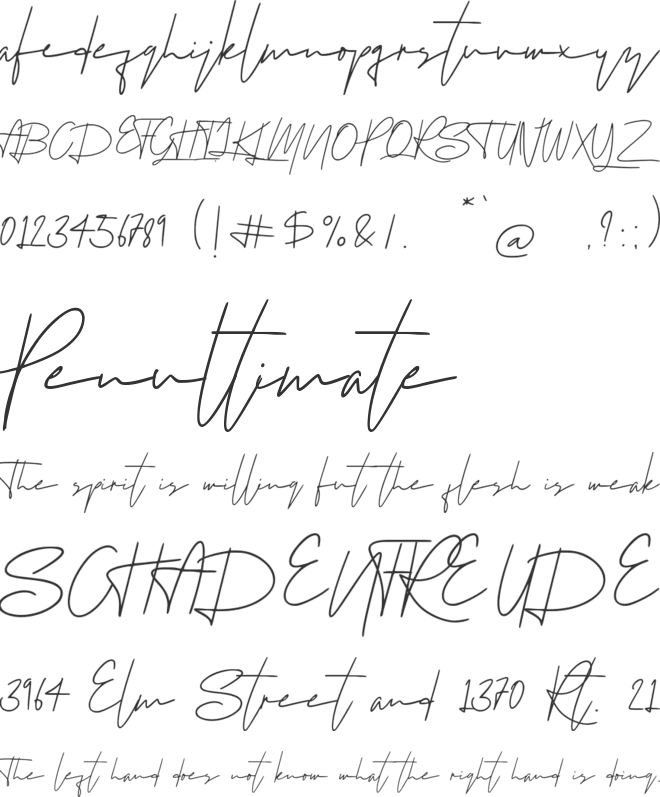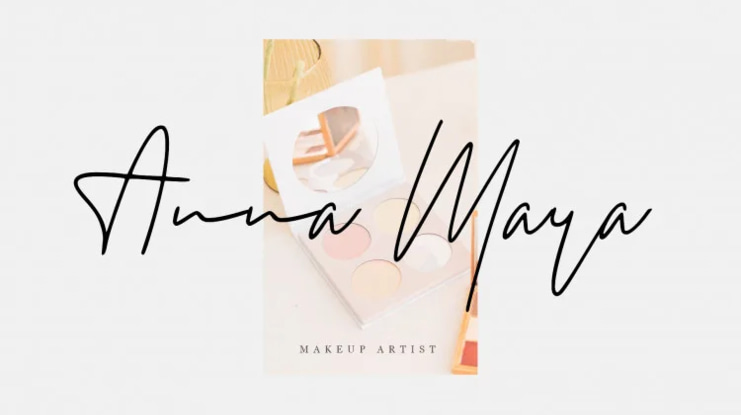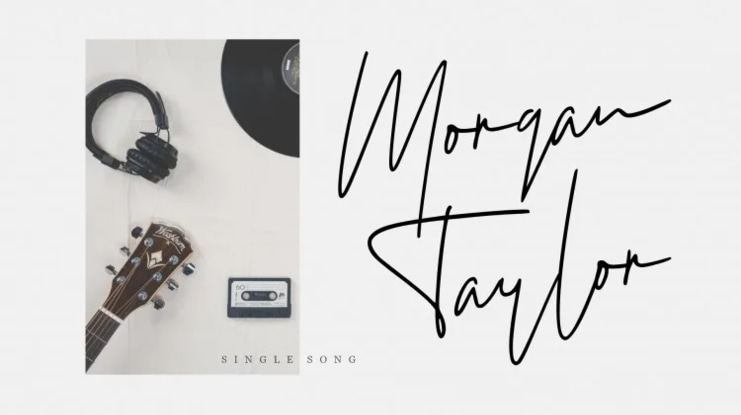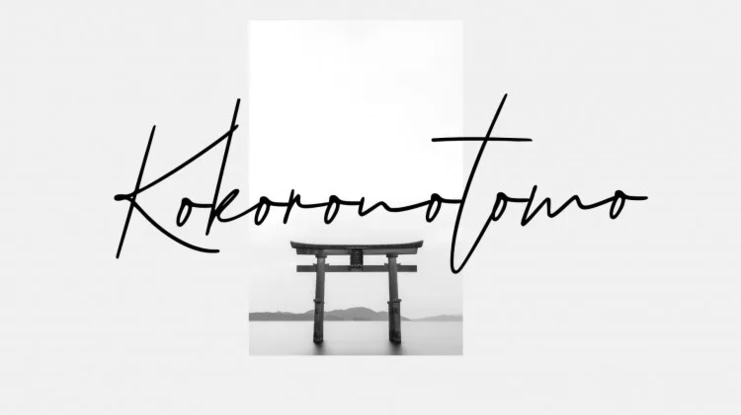
Hedland Font
Hedland Handwriting is a modern handwritten font with an elegant signature style. This font has an upright movement that makes this font look elegant. Hedland Handwriting Perfect use for logo designs, printed quotes, badges, packaging, titles, posters, t-shirts/clothing, greeting cards and wedding invitations, & etc.